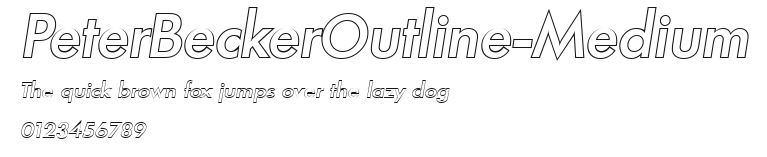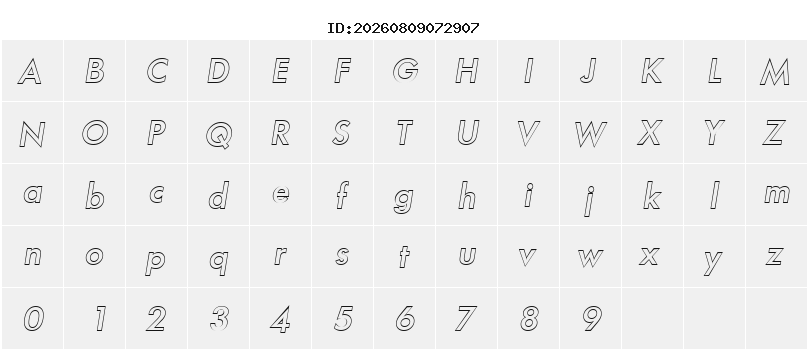
PeterBeckerOutline-Medium Preview
• Font Name: PeterBeckerOutline-Medium
• Font ID: Alts:PeterBeckerOutline-Medium-Italic
• Full Font Name: PeterBeckerOutline-Medium-Italic
• PostScript Name: PeterBeckerOutline-Medium-Italic
About PeterBeckerOutline-Medium.ttf
PeterBeckerOutline-Medium.ttf is a modern, elegant sans-serif font designed for ultimate readability and visual harmony. Perfect for branding, headlines, web design, and print materials.